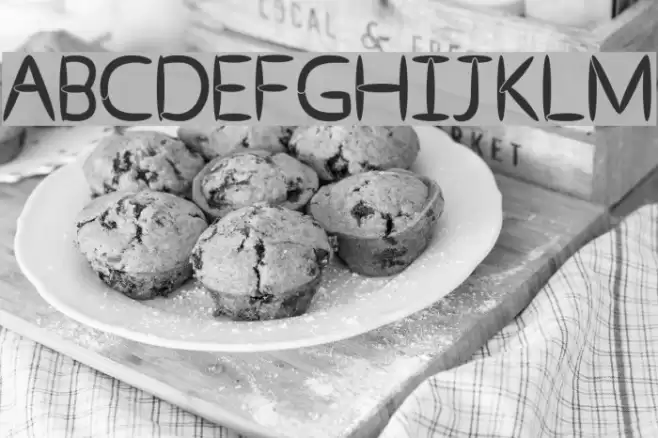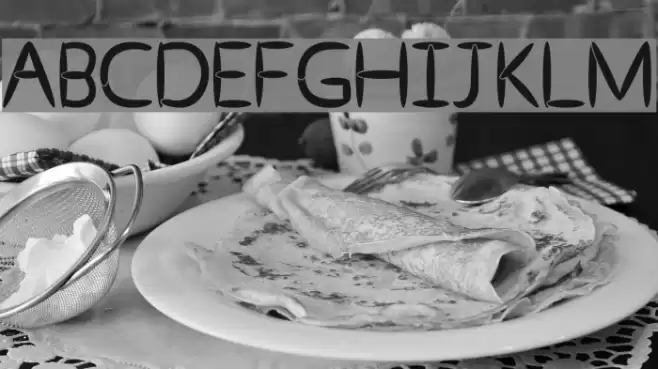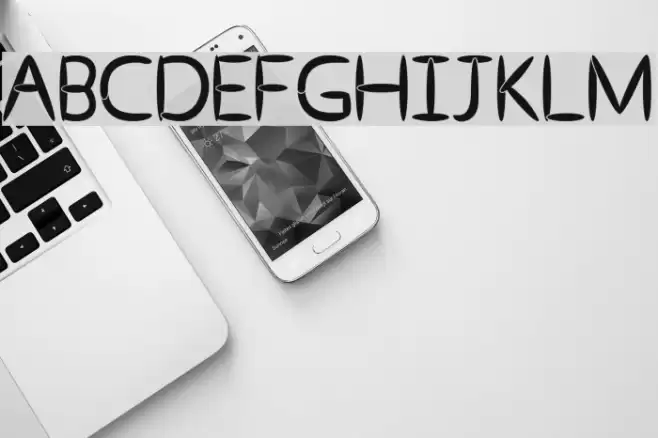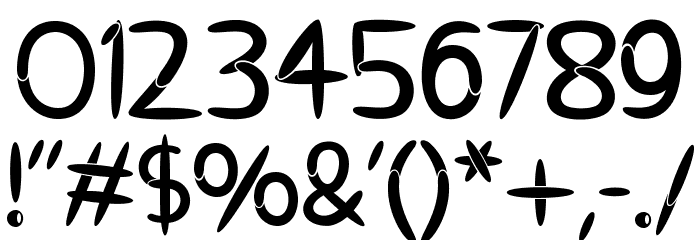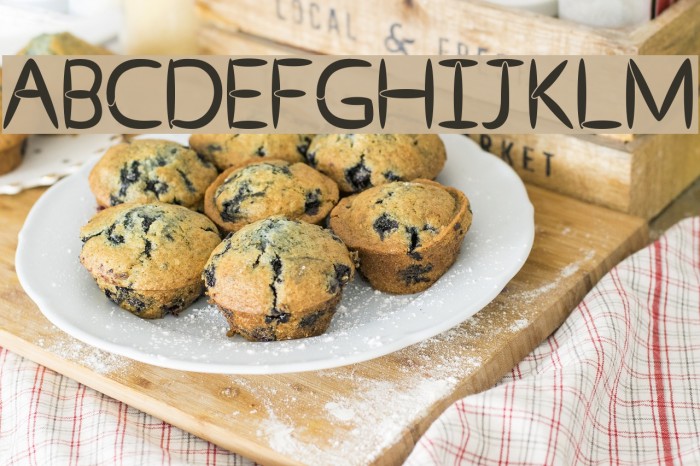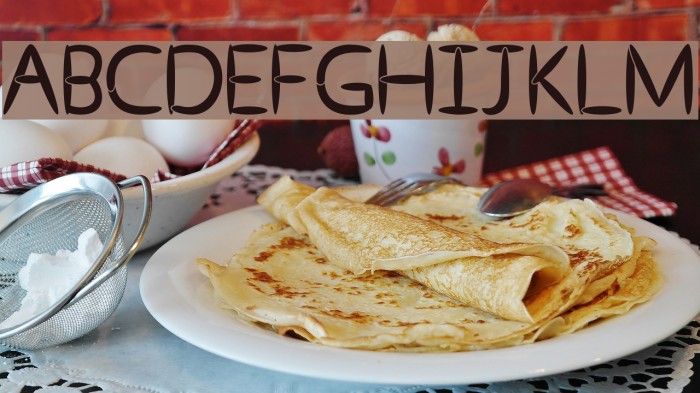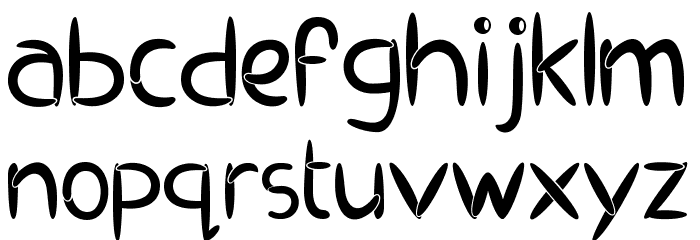
EP Pipes Font
EP Pipes Description
This font features a playful and unique design, characterized by its tubular and rounded letterforms that resemble pipes. The strokes are consistent in width, giving it a uniform appearance, while the ends of each character have a slightly tapered finish, adding a touch of elegance. The uppercase and lowercase letters maintain a cohesive style, with a slight slant that adds dynamism. Numbers and special characters follow the same design principles, ensuring a harmonious look across all text. The font's distinctiveness makes it suitable for creative and informal applications, where a touch of whimsy is desired.
A playful, tubular font with rounded, pipe-like letterforms from Uncategorized fonts.
- Proposed Projects: Ideal for children's books, playful branding, creative posters, and informal invitations.
- Overall Style: Playful, Creative
- Use Case: Logos, Posters, Creative Projects